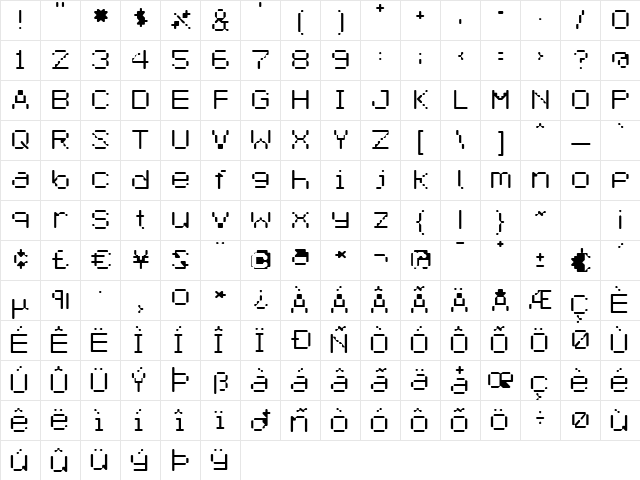
Selector Light
Design Context for Selector Typeface
Selector is a composed and adaptable typeface that performs quietly and consistently across a wide range of design contexts. Its slender proportions lend an understated elegance to any composition.